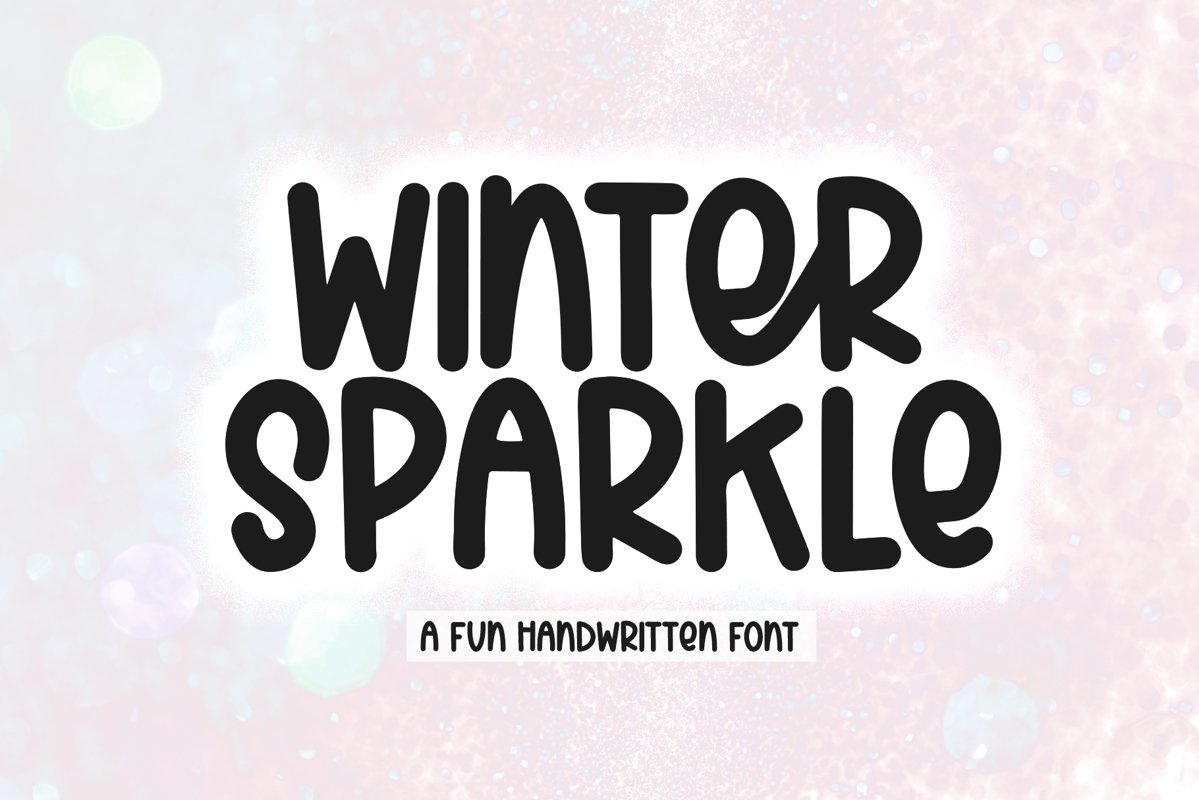
Winter Sparkle - A Fun Handwritten Font
Winter Sparkle is a fun handwritten font!
This font is perfect for quotes, shirt designs, websites, branding, children's designs, svg designs, blogs, logos, invitations and more!